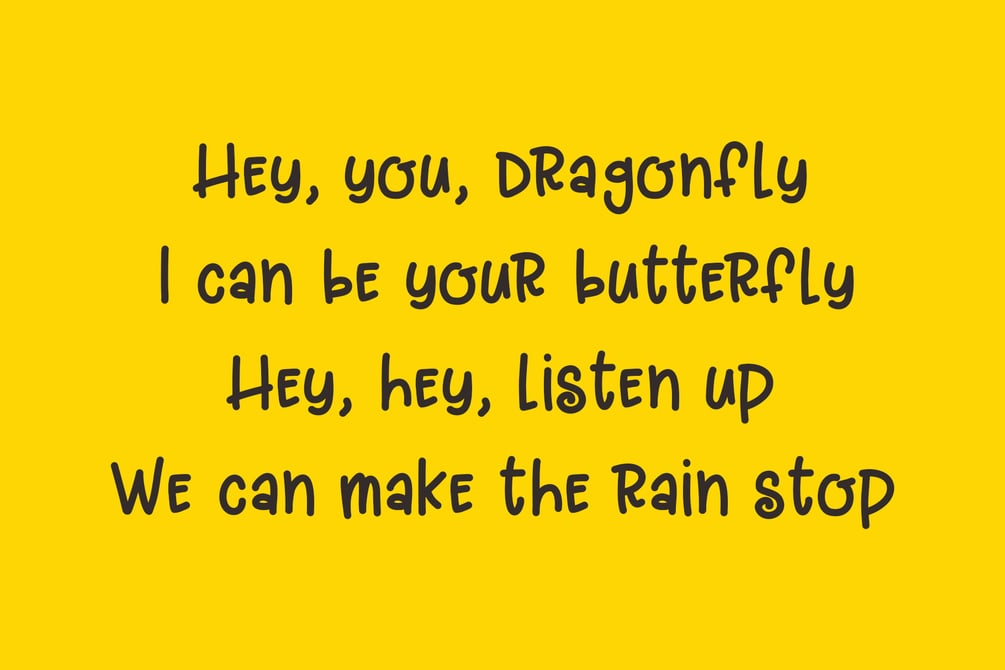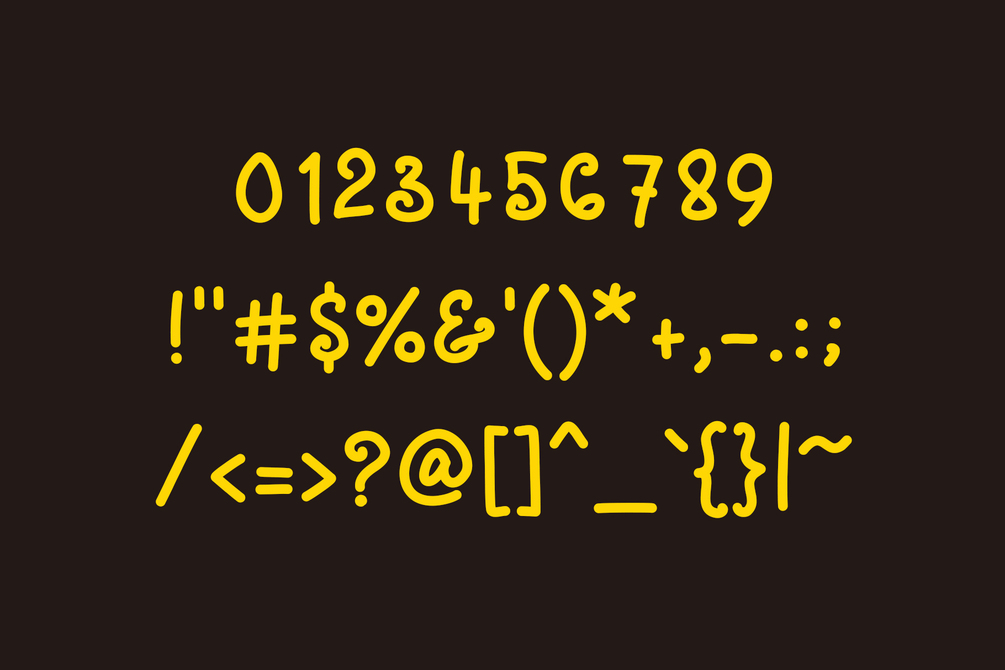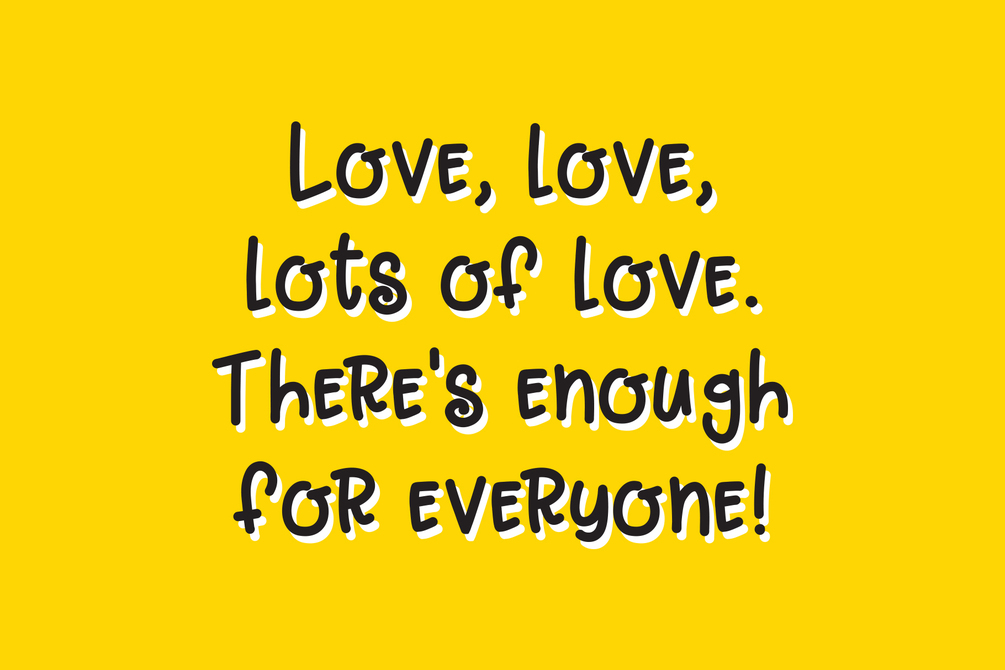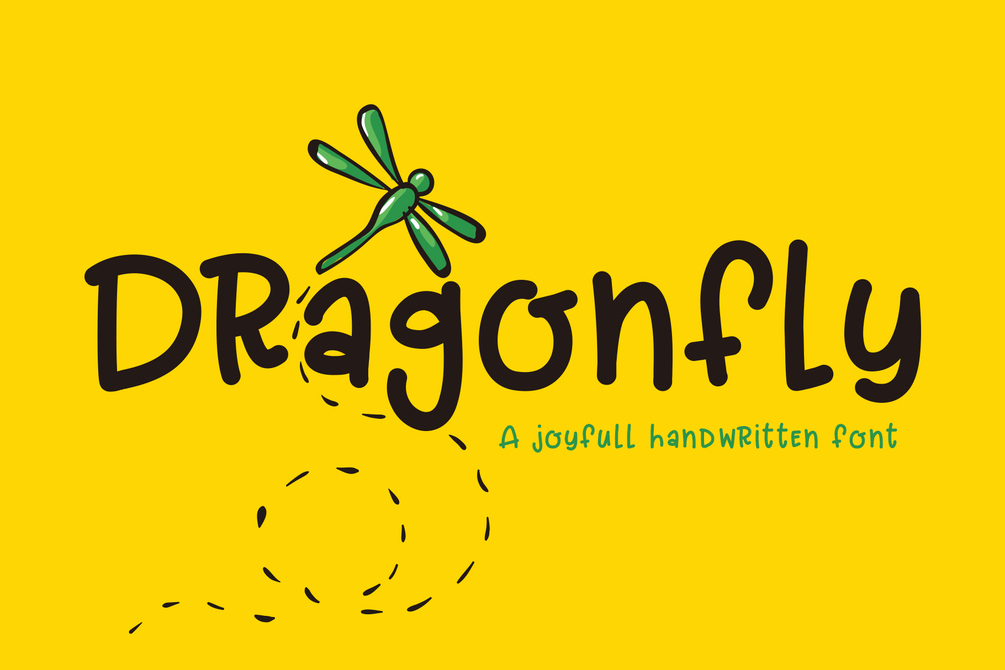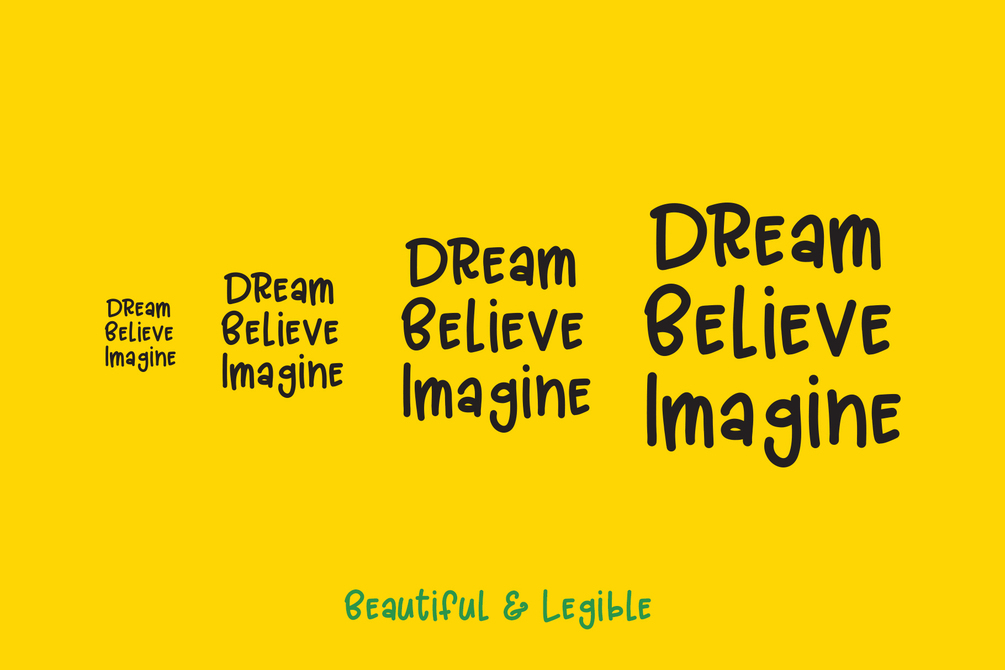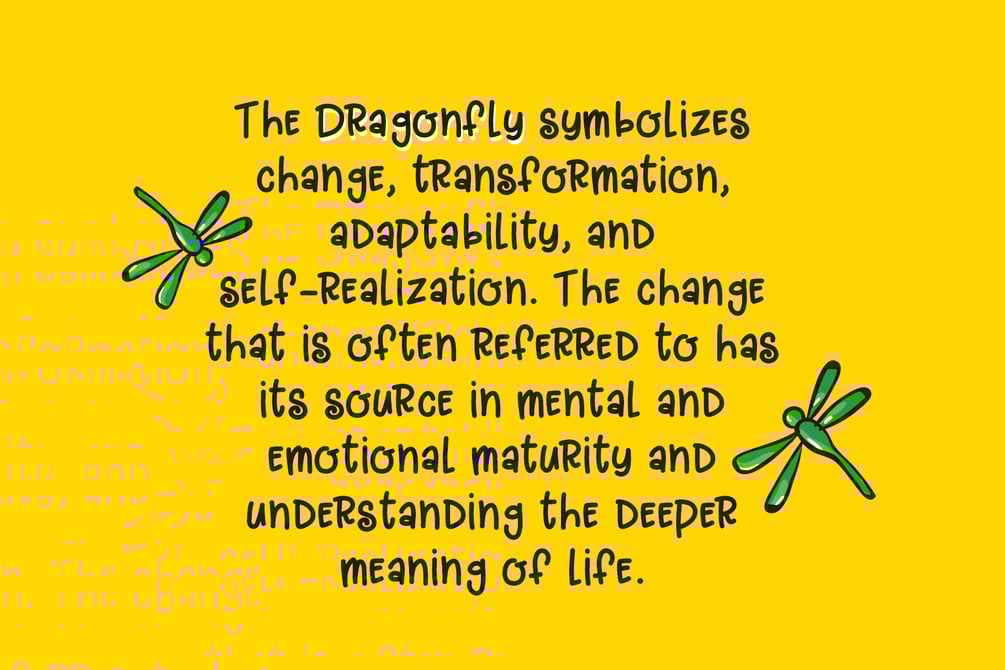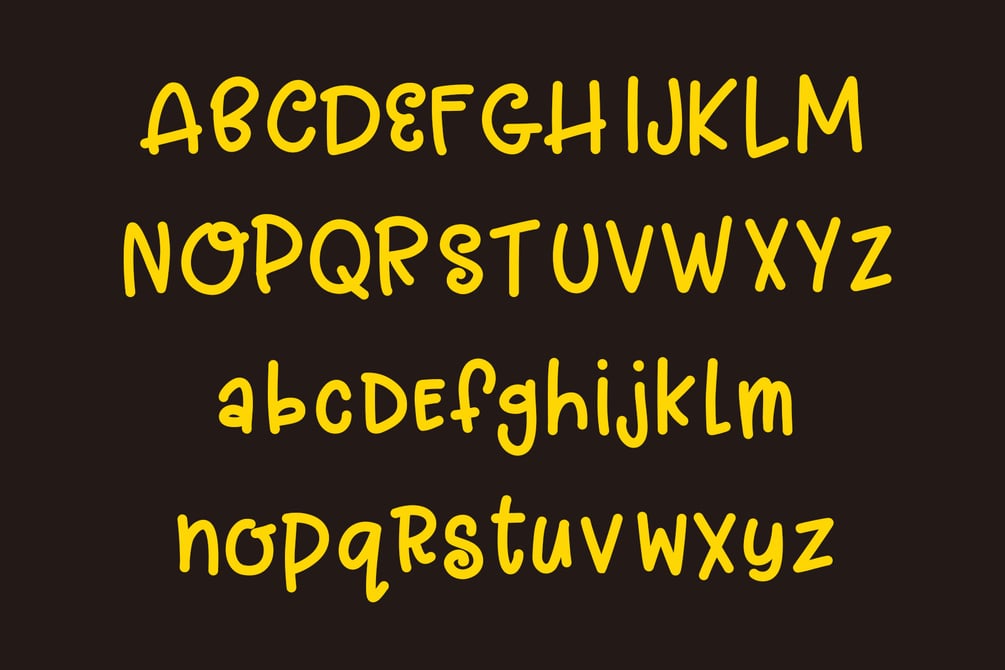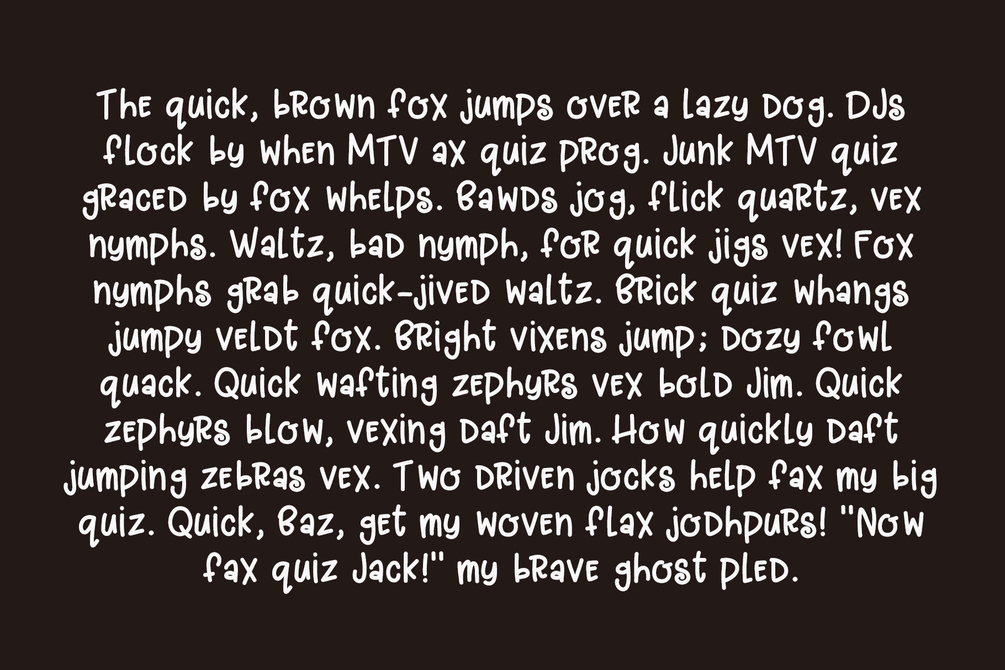
Dragonfly - Joyful Handwritten Font
Introducing Dragonfly, a smooth and playful handmade typeface. The font is not only beautiful, but also legible. Even at small sizes it's fun and joyful to read. You can confidently use it for logos, quotes, invitations, blog posts, business cards, presentations and more!